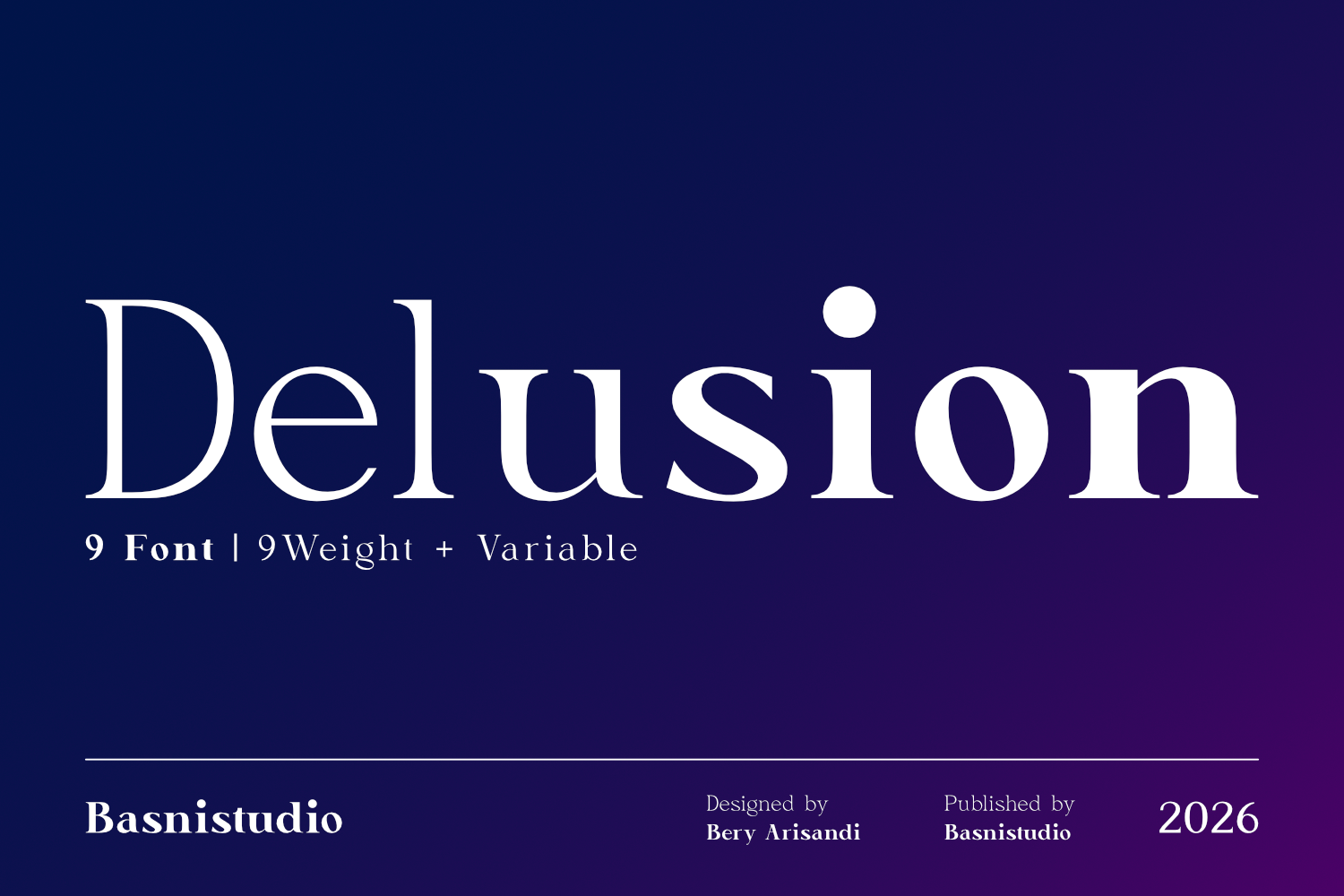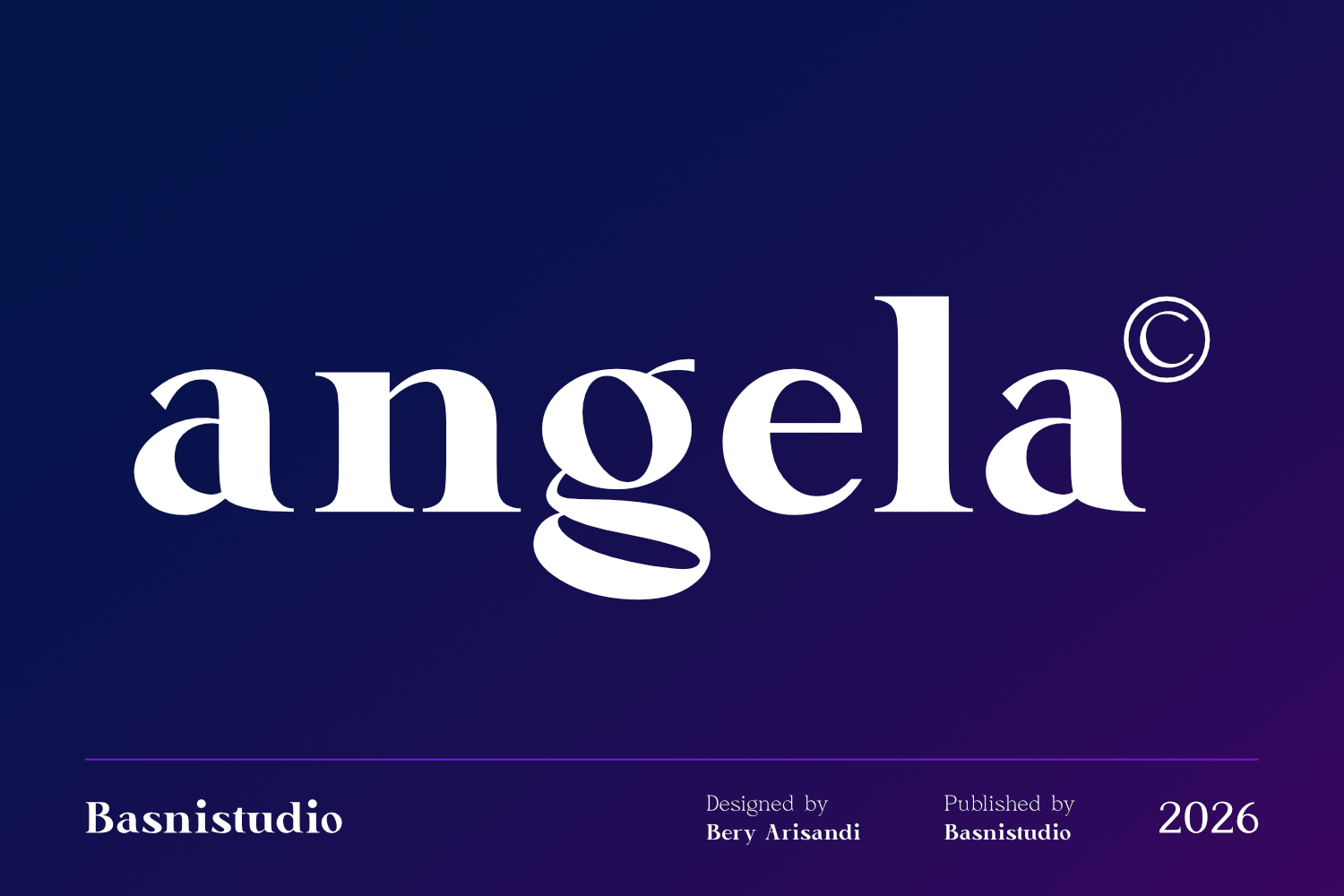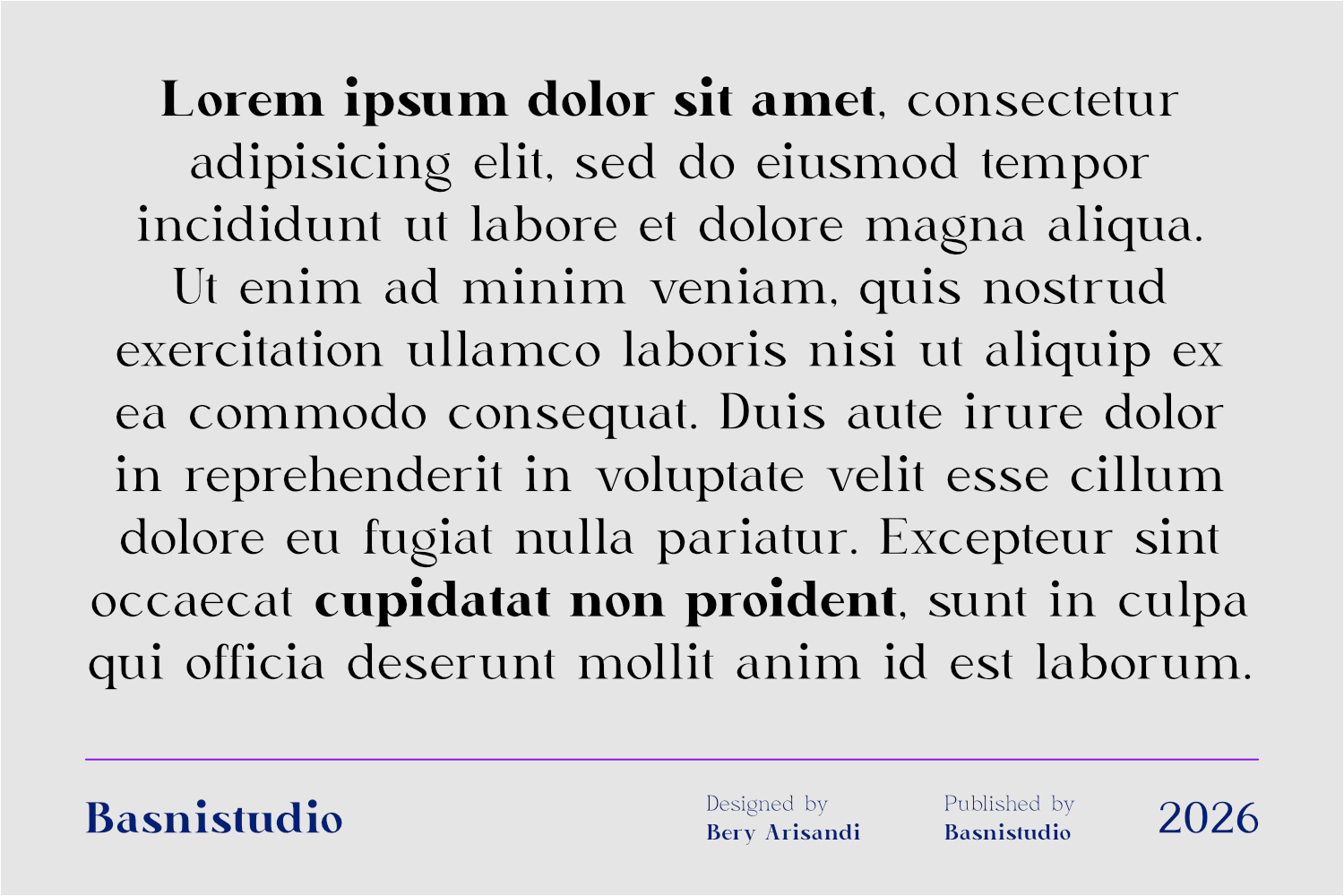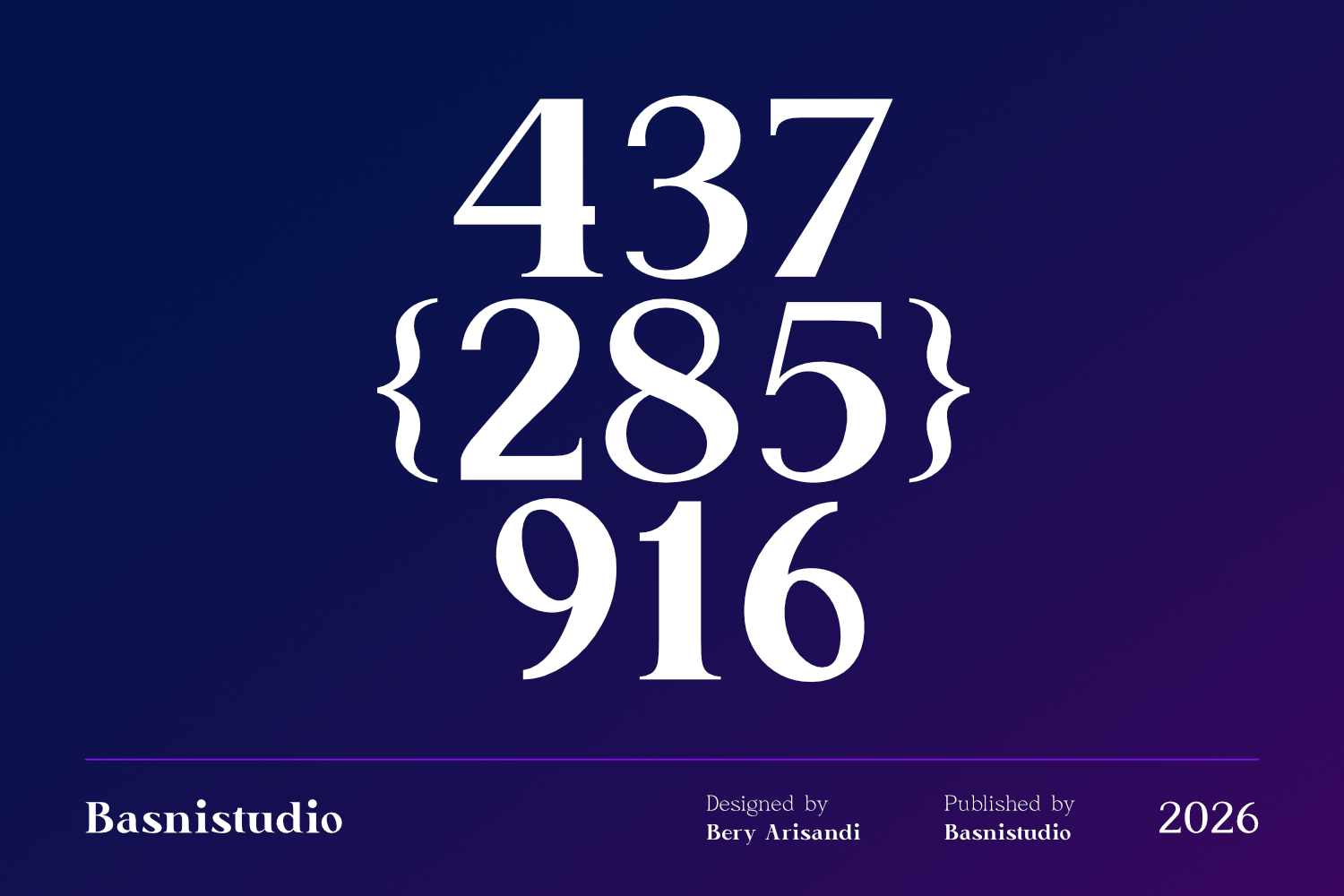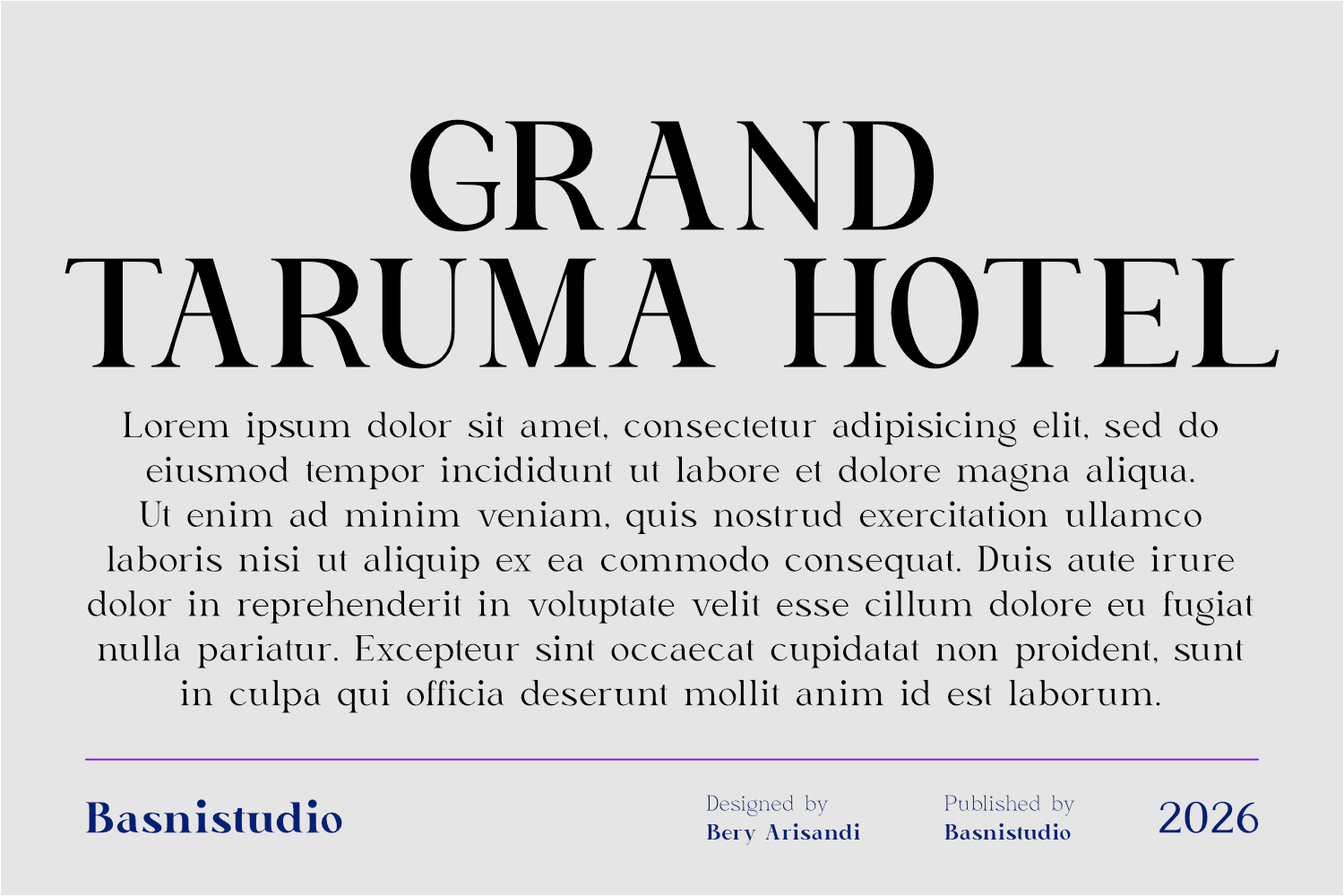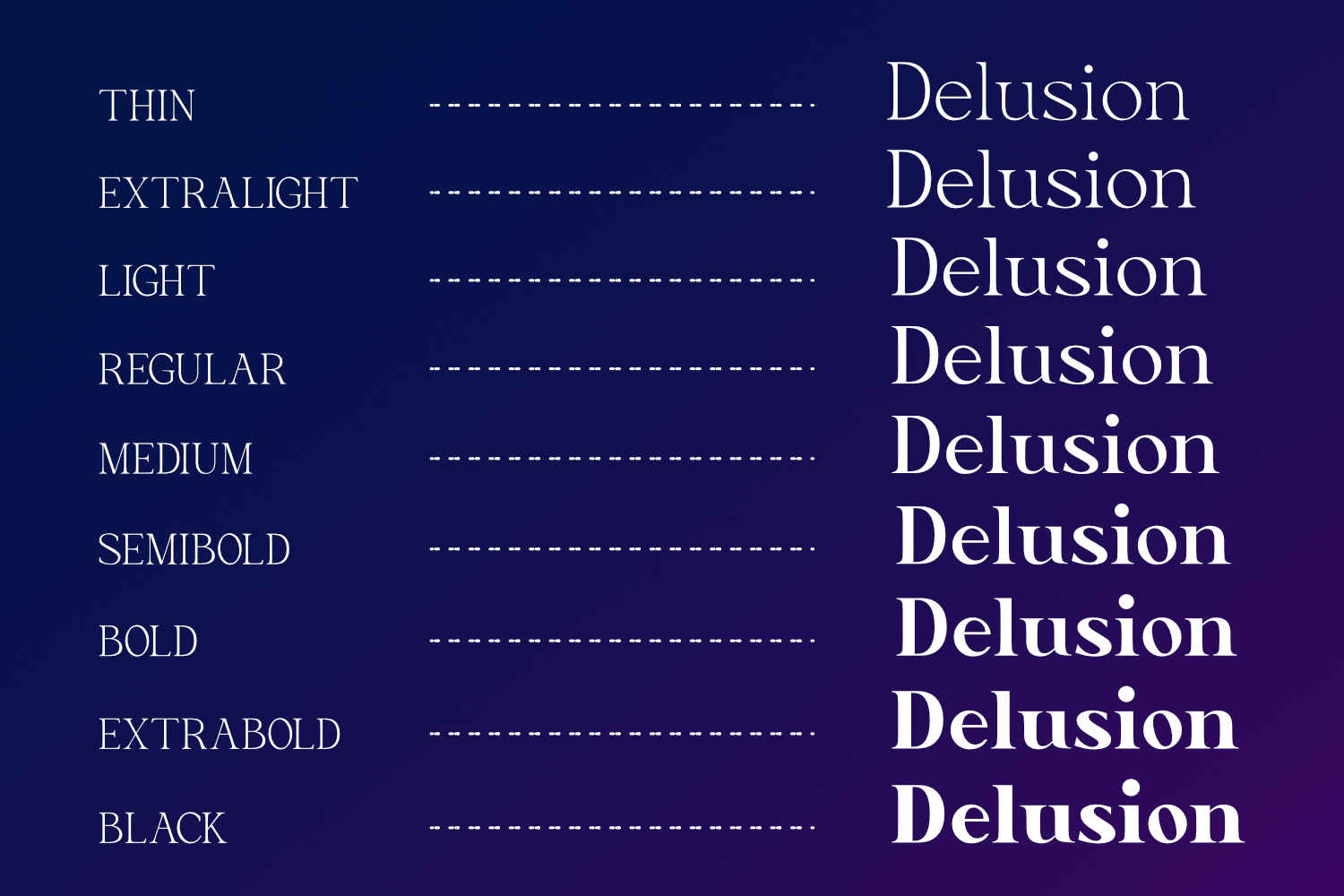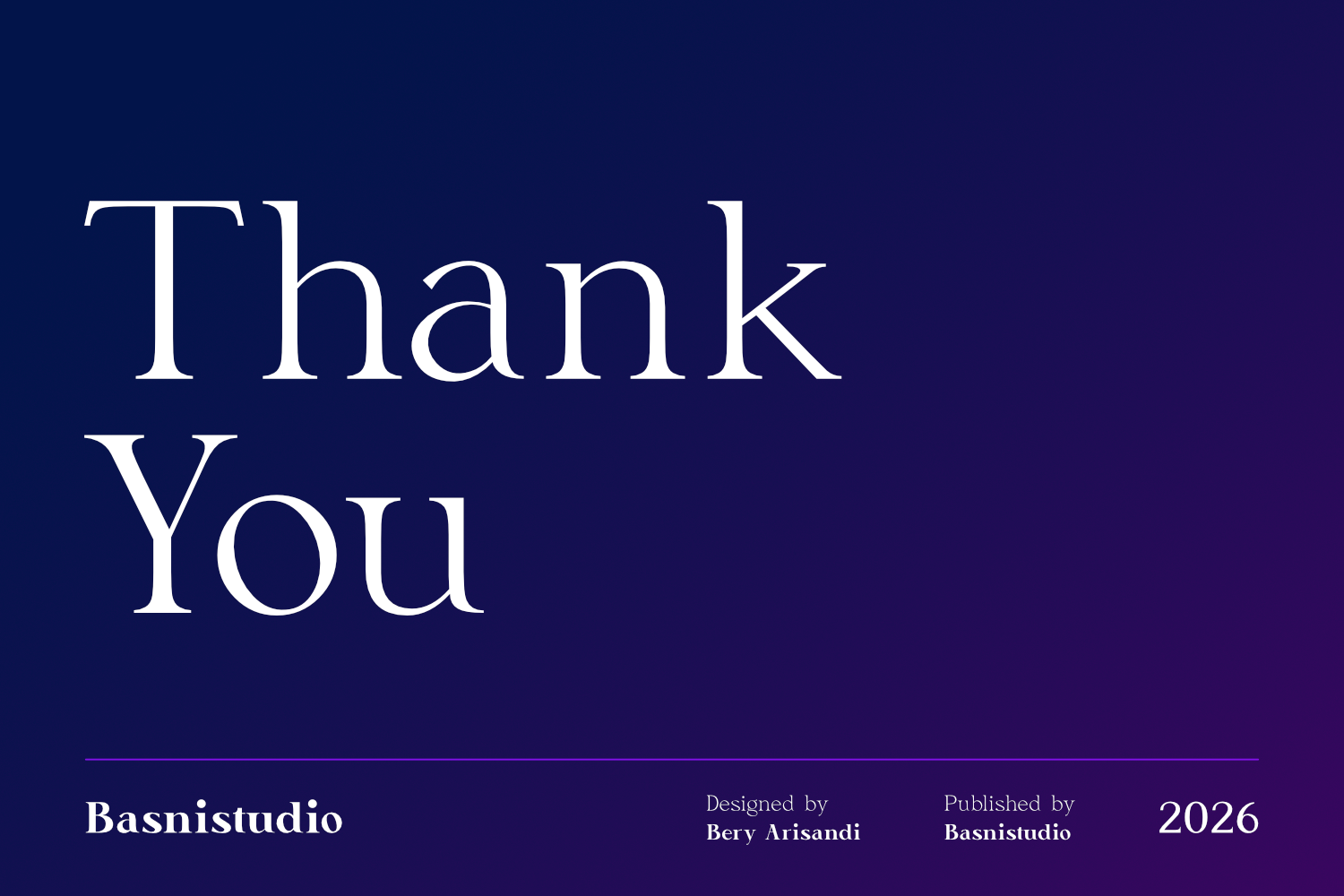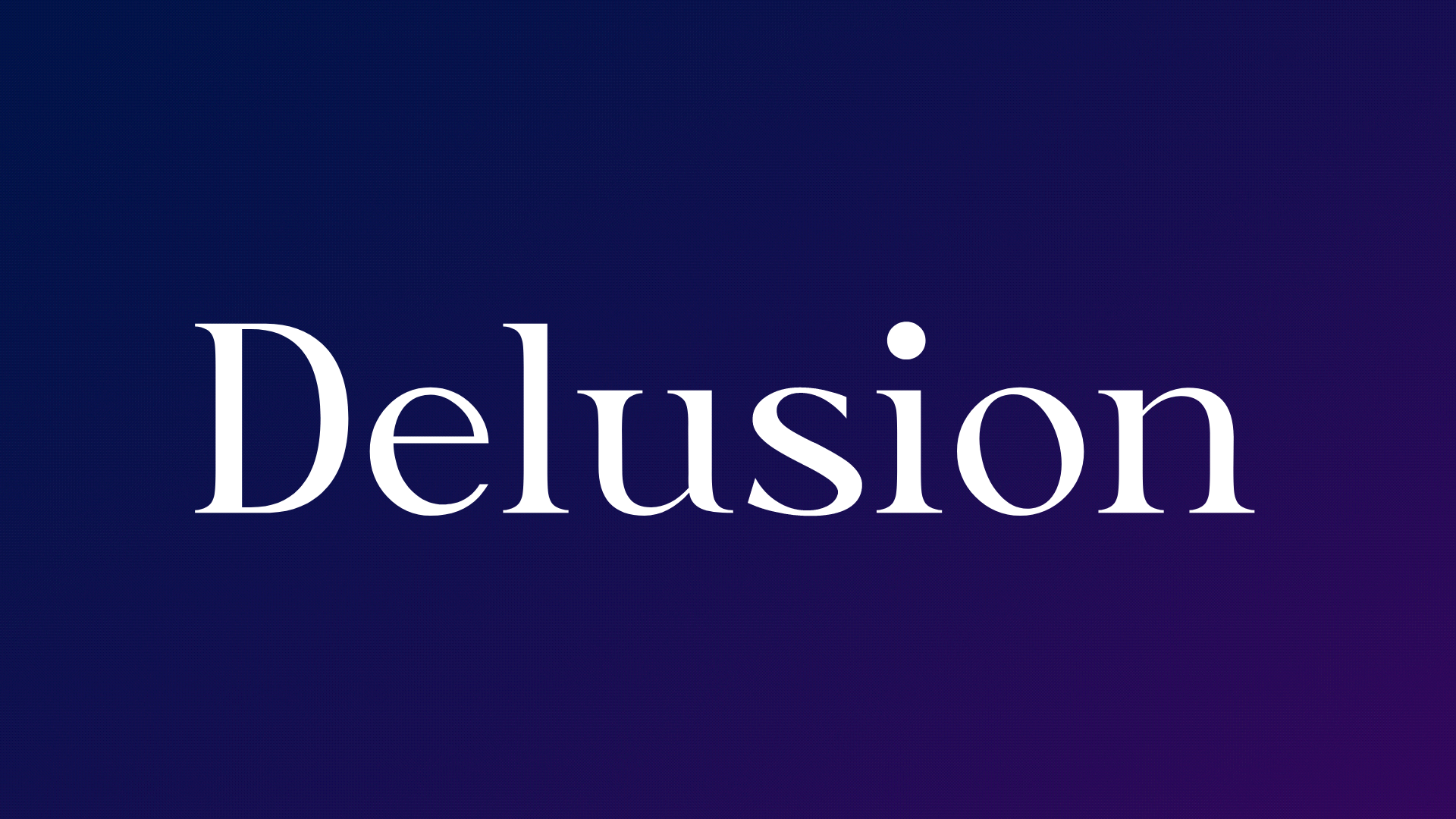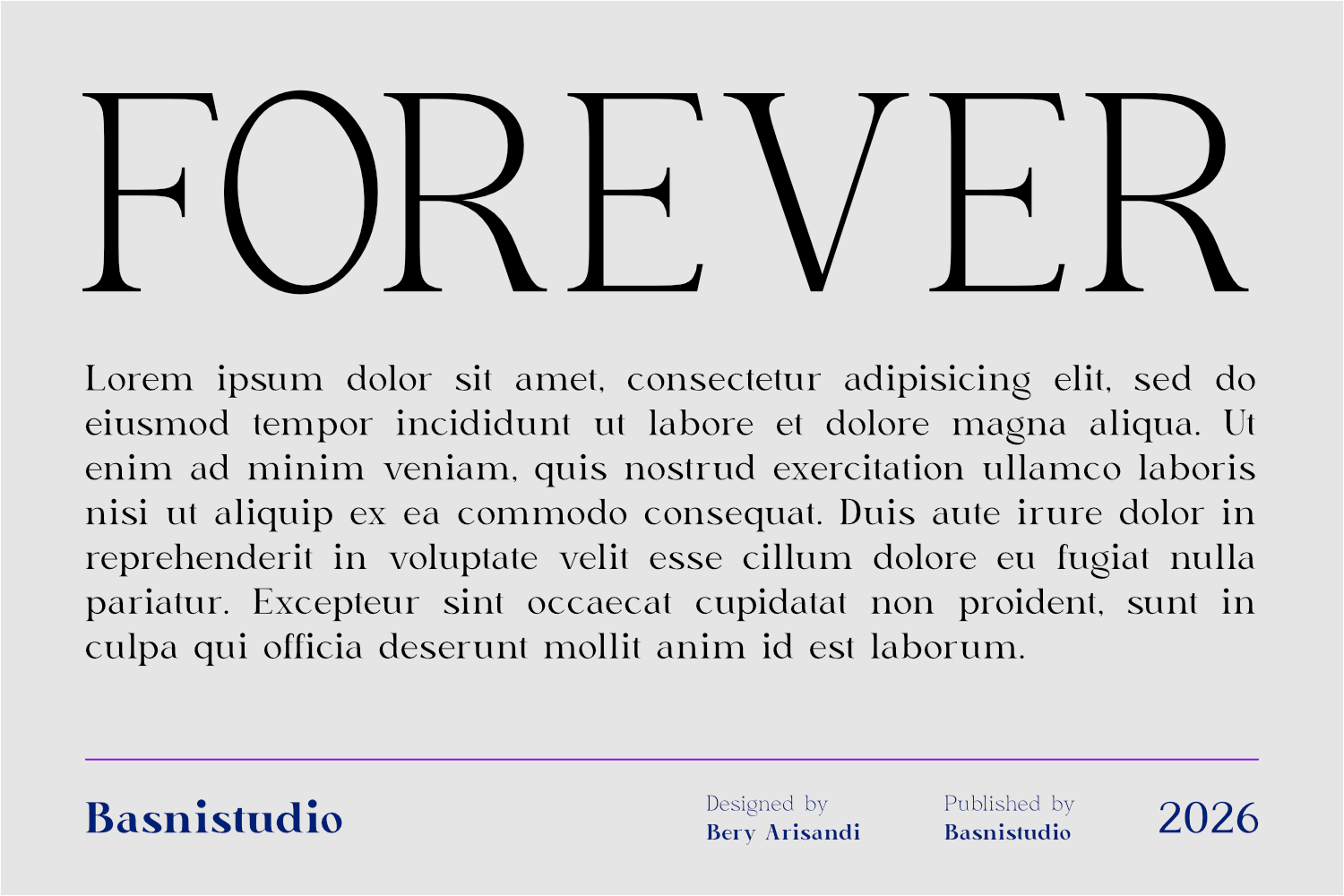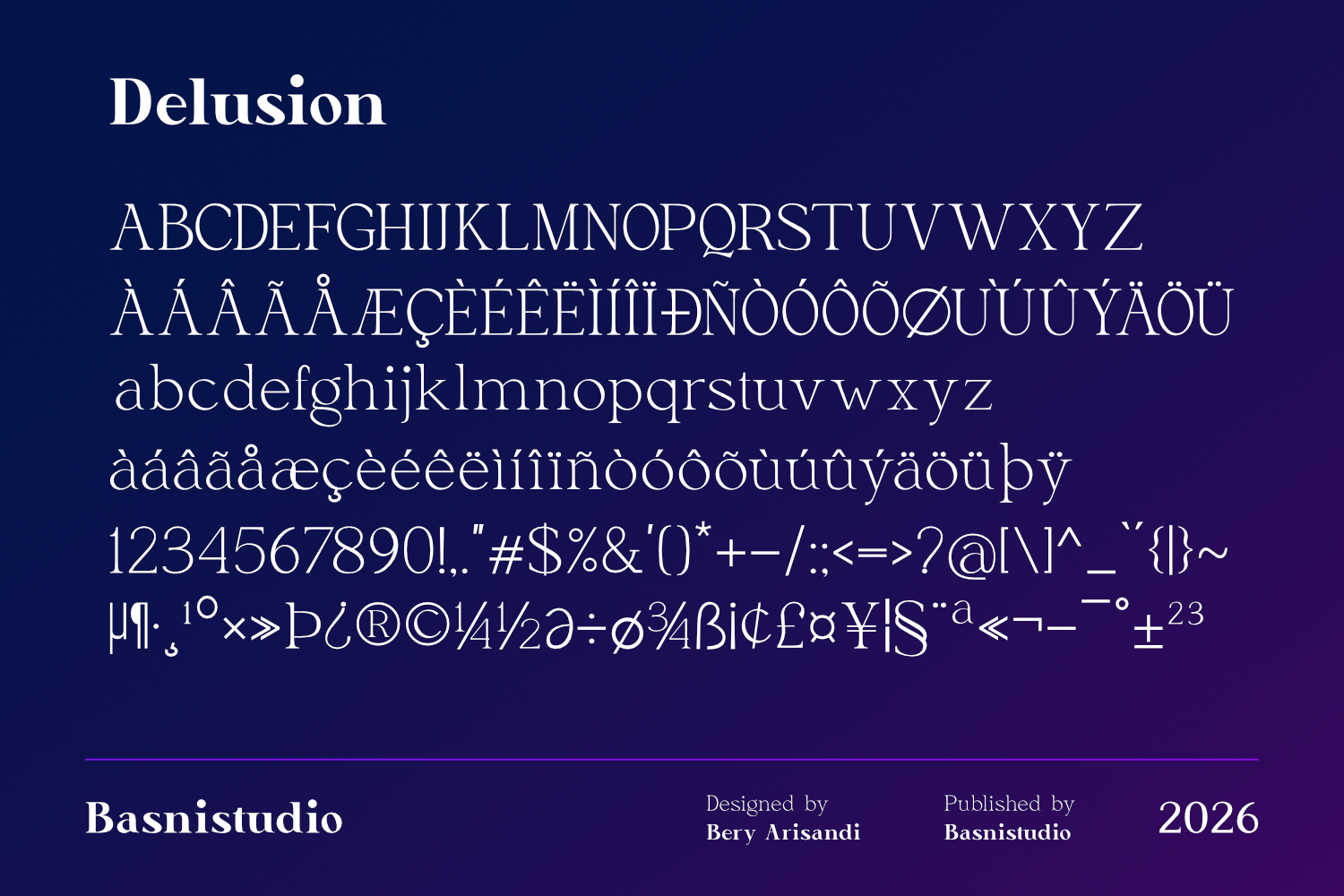
Delusion – Elegant Serif Font
This elegant serif typeface is enhanced with Variable Font, giving you complete control over weight adjustments while maintaining its refined character and luxurious presence.
Whether you’re building a high-end brand identity, designing magazine layouts, crafting wedding stationery, or creating premium packaging, this font adapts effortlessly to your creative vision.
Experience the beauty of classic typography with the power of contemporary design technology.
• Variable Font Support
• Wide Weight Range
• Elegant Serif Design
• Multilingual Characters
• Perfect for Branding, Editorial, Packaging, and Luxury Projects